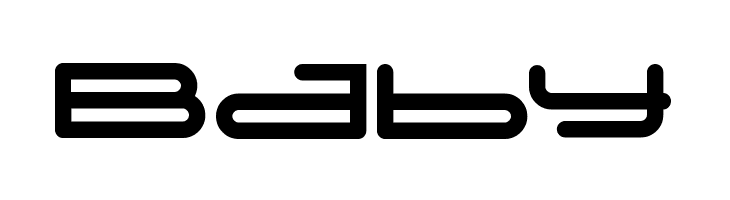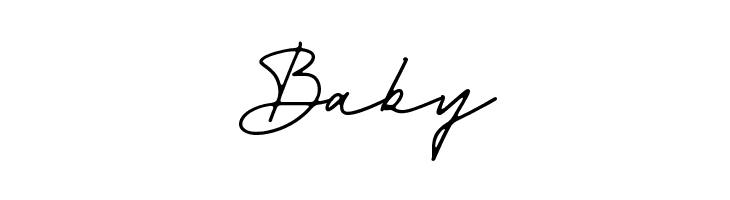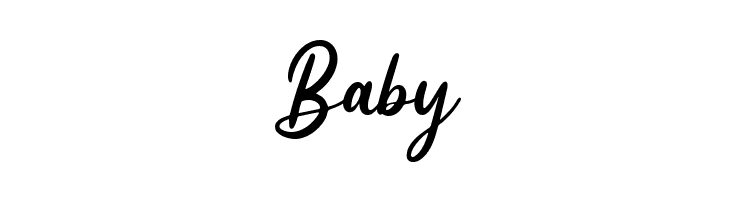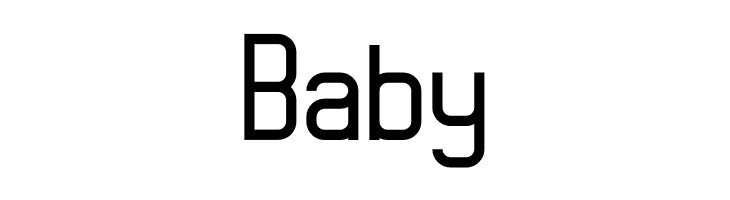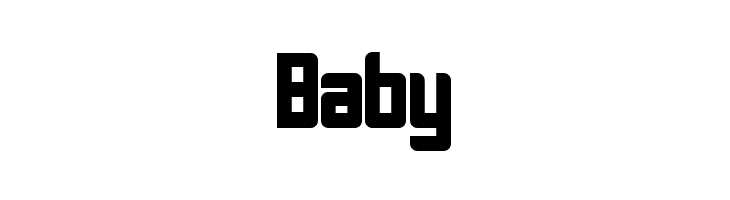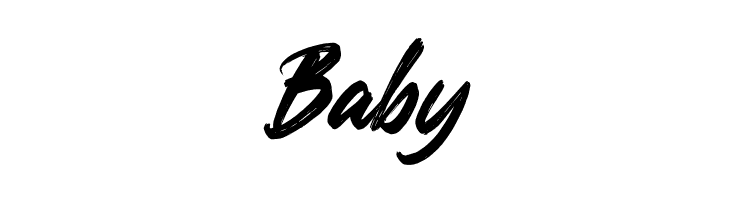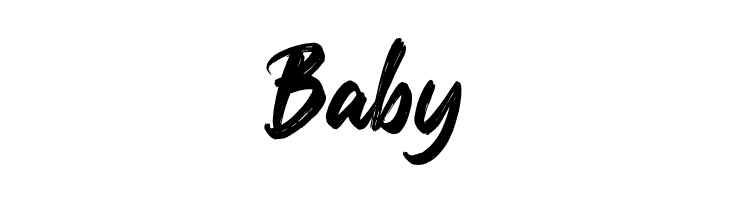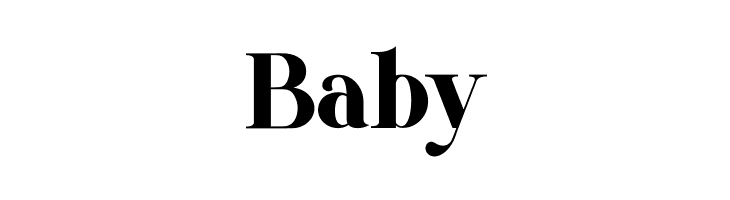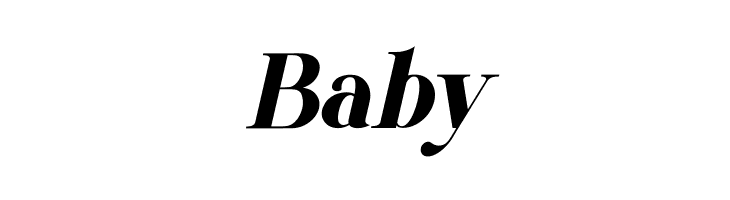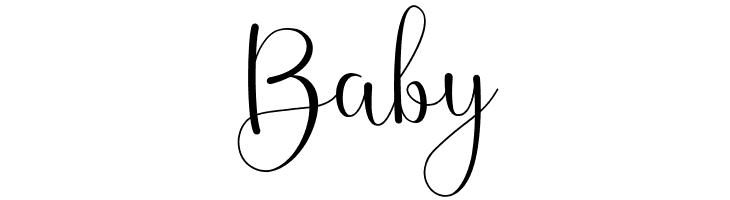
( Fonts by Redy Studio )
Handwritten script font with elegant, flowing strokes.
( Fonts by Balpirick Studio )
A playful, handwritten font with smooth, rounded strokes and a casual, friendly style.
A dynamic handwritten font with expressive flourishes and elegant curves.
A high-contrast serif font with elegant, refined strokes.
A bold, italicized font with high contrast and elegant style.
A dynamic and expressive handwritten font with fluid strokes and a brush-like texture.
A cursive, handwritten-style font with elegant, flowing lines.
A whimsical and playful script font with flowing, interconnected letters.
A dynamic and fluid script font with elegant, flowing letterforms.
A graceful, flowing script font with elegant, looping strokes.
A playful, handwritten font with an informal and lively style.
A playful, handwritten font with tall, narrow letters and a modern aesthetic.
( Figuree Studio - Icep Fadhil )
A bold, brush-style font with dynamic, hand-drawn strokes.
A dynamic and fluid cursive script with elegant, elongated strokes.
A bold, distressed font with a grunge aesthetic, perfect for edgy designs.
A bold, distressed, and italicized font with a grunge texture.
A graceful script font with flowing, cursive strokes and elegant loops.
A lively, expressive handwritten font with fluid, dynamic strokes.
A bold, geometric font with a modern, tech-inspired design.
A bold, playful handwritten font with smooth curves and thick strokes.
A bold, playful handwritten font with thick strokes and rounded edges.
A bold, geometric font with a modern and futuristic design.
A bold, impactful font with thick strokes and a modern-retro style.
A modern, geometric font with a sleek and minimalistic design.
A futuristic, geometric font with sleek, angular characters.
A bold, brush-style font with dynamic, hand-painted strokes.
A bold, brush-style italic font with dynamic, handwritten characteristics.
( Fonts by Riki - Personal-use only. For commercial use please contact owner. )
A dynamic, expressive handwritten font with playful curves and fluid strokes.
( Fonts by Storytype Studio )
A graceful and decorative script font.
( Fonts by Rometheme Studio - Yahdi Kumala - Personal-use only. For commercial use please contact owner. )
A bold, hand-drawn font with playful, uneven strokes and a dynamic appearance.
( Fonts by Storytype Studio )
A graceful, calligraphic script font.
A bold, decorative font with textured patterns and geometric shapes.
A playful, bold script font with a handwritten feel.